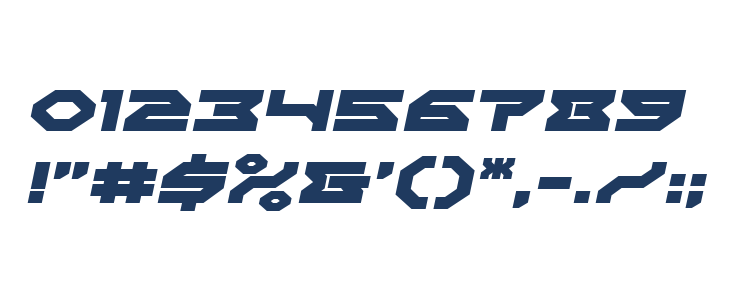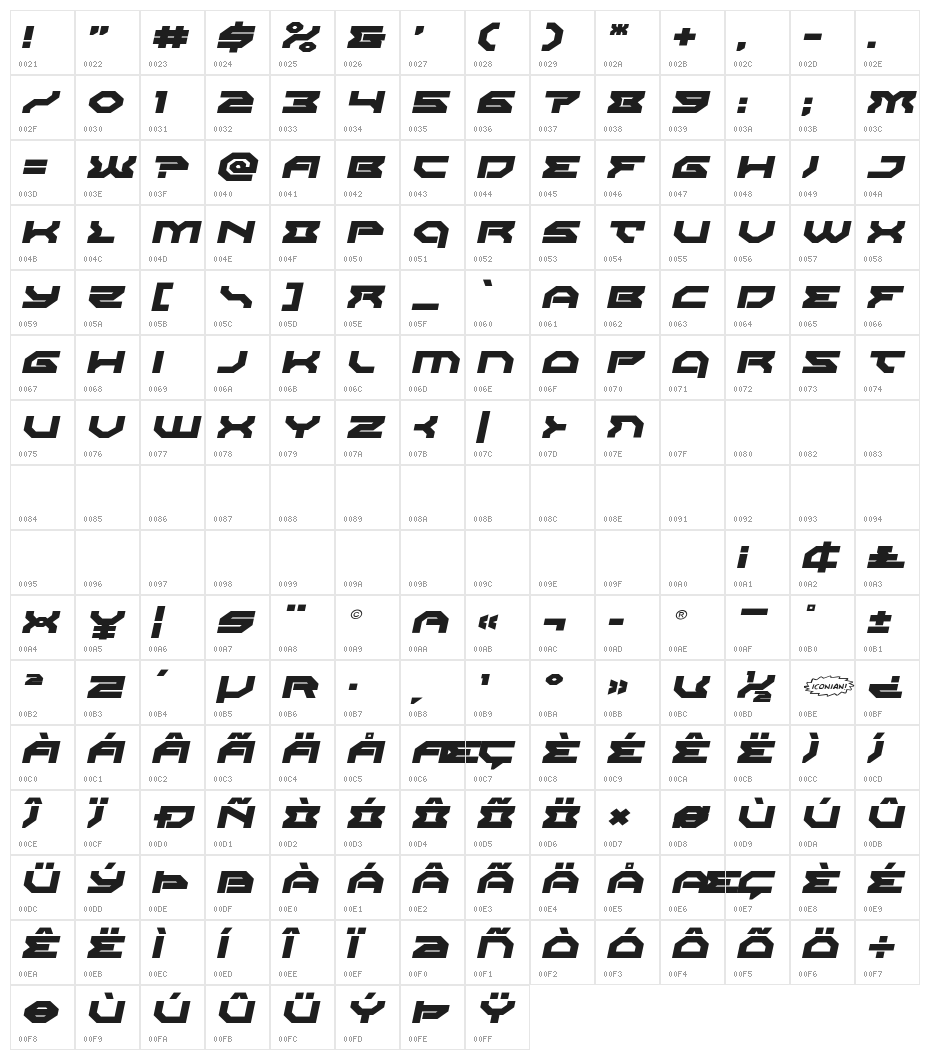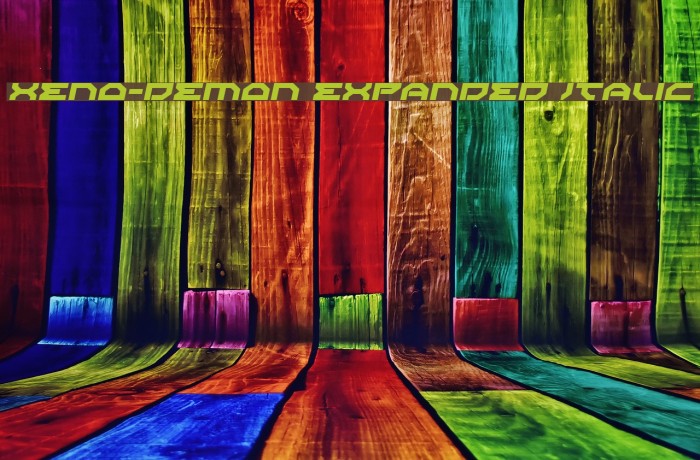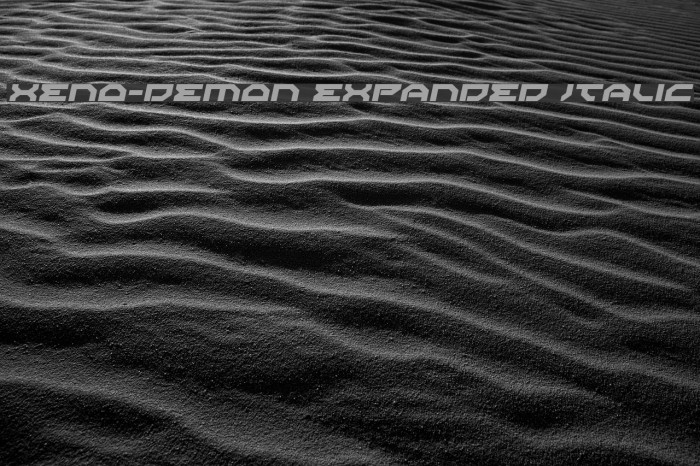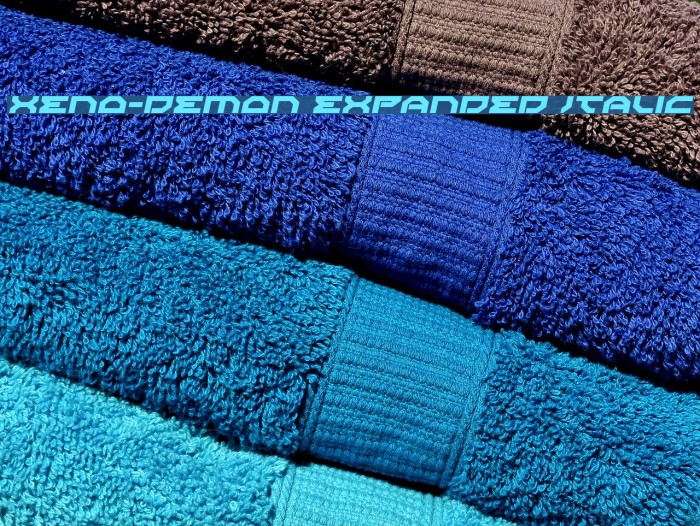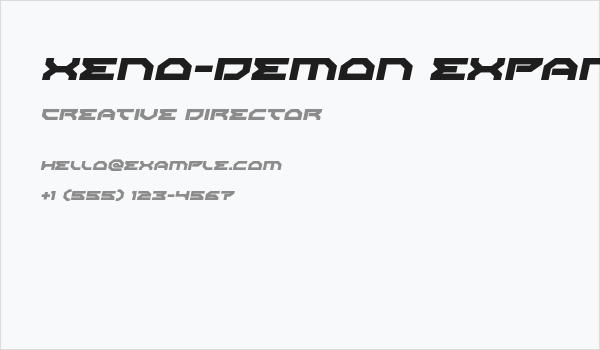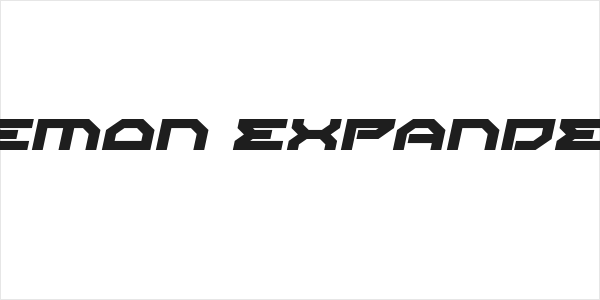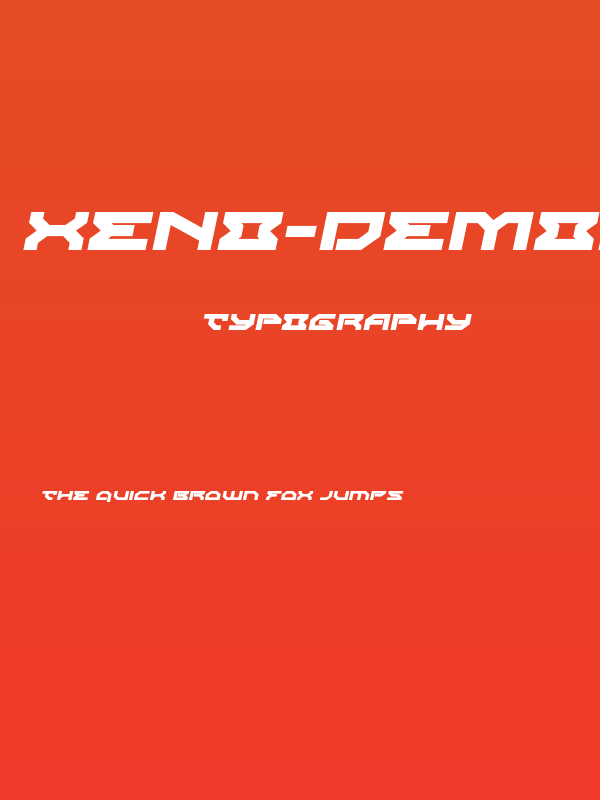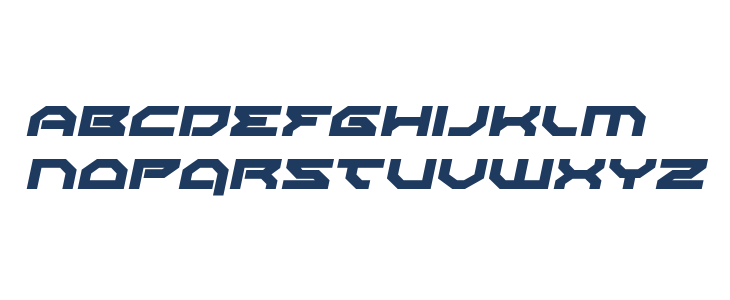
Xeno-Demon Expanded Italic Font
Xeno-Demon Expanded Italic Description
This font features a bold, futuristic design with sharp, angular edges and a distinct italic slant. The expanded width gives it a commanding presence, making it ideal for attention-grabbing headlines. The characters are uniformly styled with a consistent geometric pattern, emphasizing a modern and edgy aesthetic. The uppercase and lowercase letters maintain a cohesive look, while the numerals and special characters integrate seamlessly into the overall design. This font's unique style is perfect for projects that require a strong, impactful visual statement.